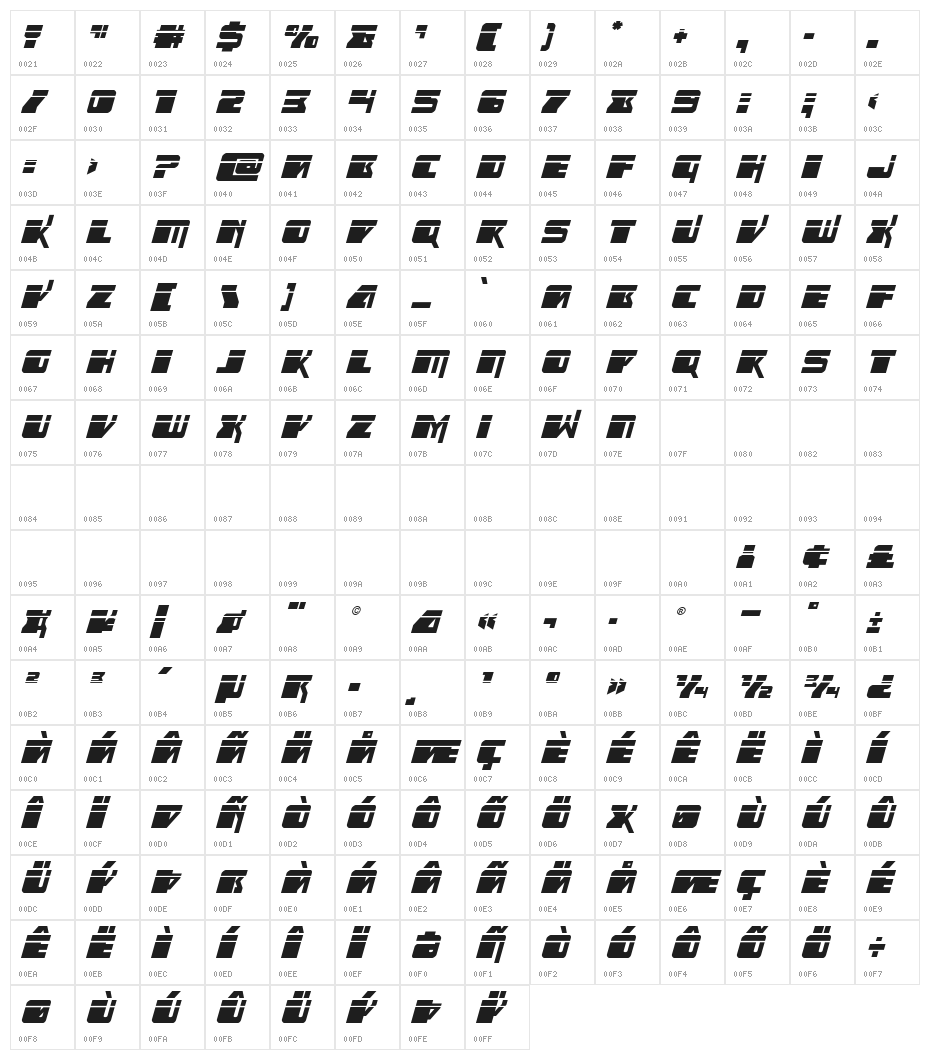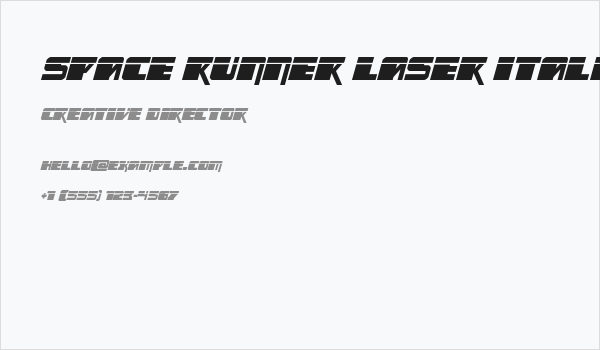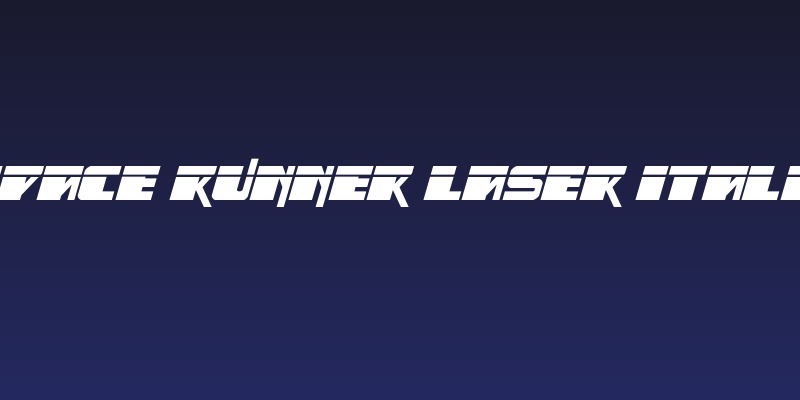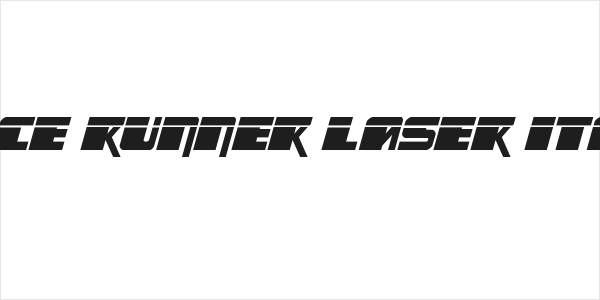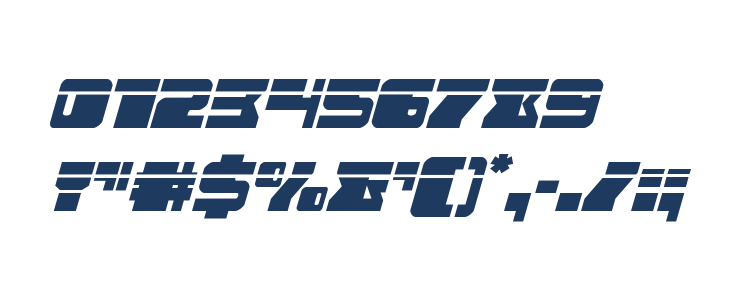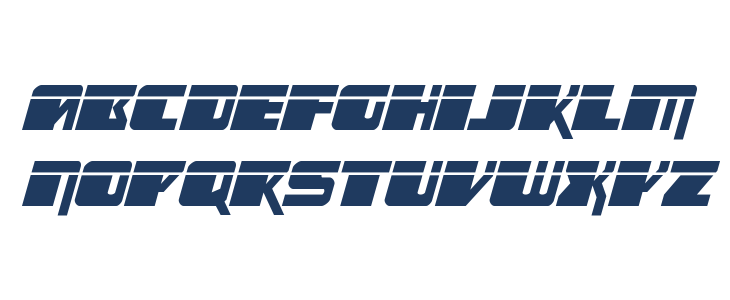
Space Runner Laser Italic Font
Space Runner Laser Italic Description
This font features a futuristic and dynamic design, characterized by sharp angles and a bold, italicized stance. The letters are wide and have a distinct geometric style, with some characters incorporating unique cutouts and slashes that add to its modern, tech-inspired aesthetic. The uppercase and lowercase letters maintain a consistent style, while the numbers and special characters complement the overall design with similar angular features. This font is well-suited for projects that require a strong, impactful visual presence.